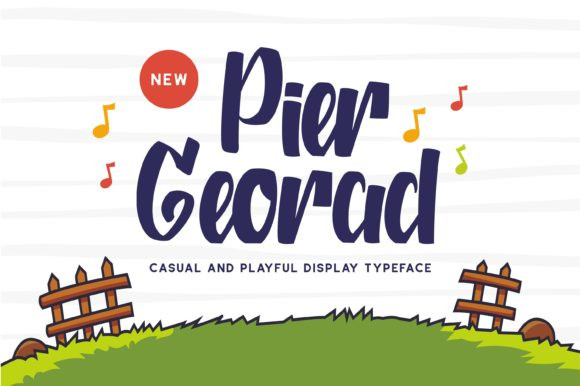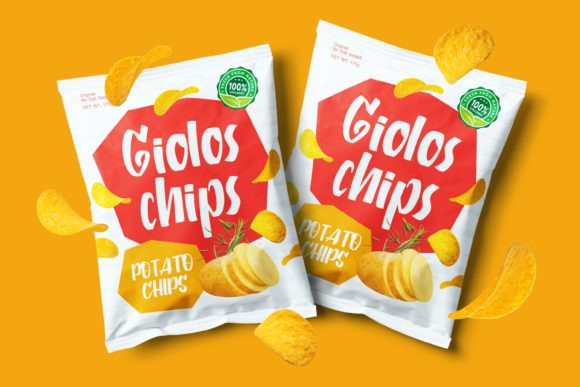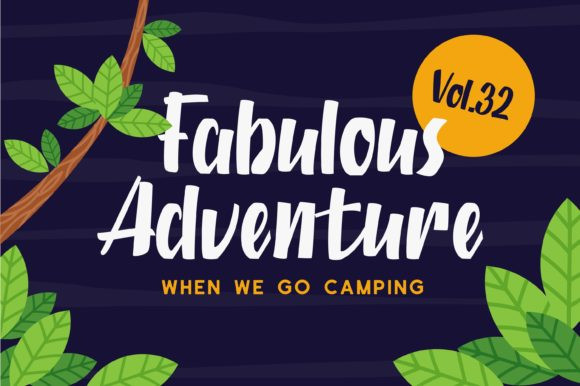
Pier Georad Font
Pier Georad is a jolly display font, carefully handcrafted to become a true favorite. Its casual charm makes it appear wonderfully down-to-earth, readable and, ultimately, incredibly versatile.Get creative with its unique playfulness, and use it to brighten up any crafting project!